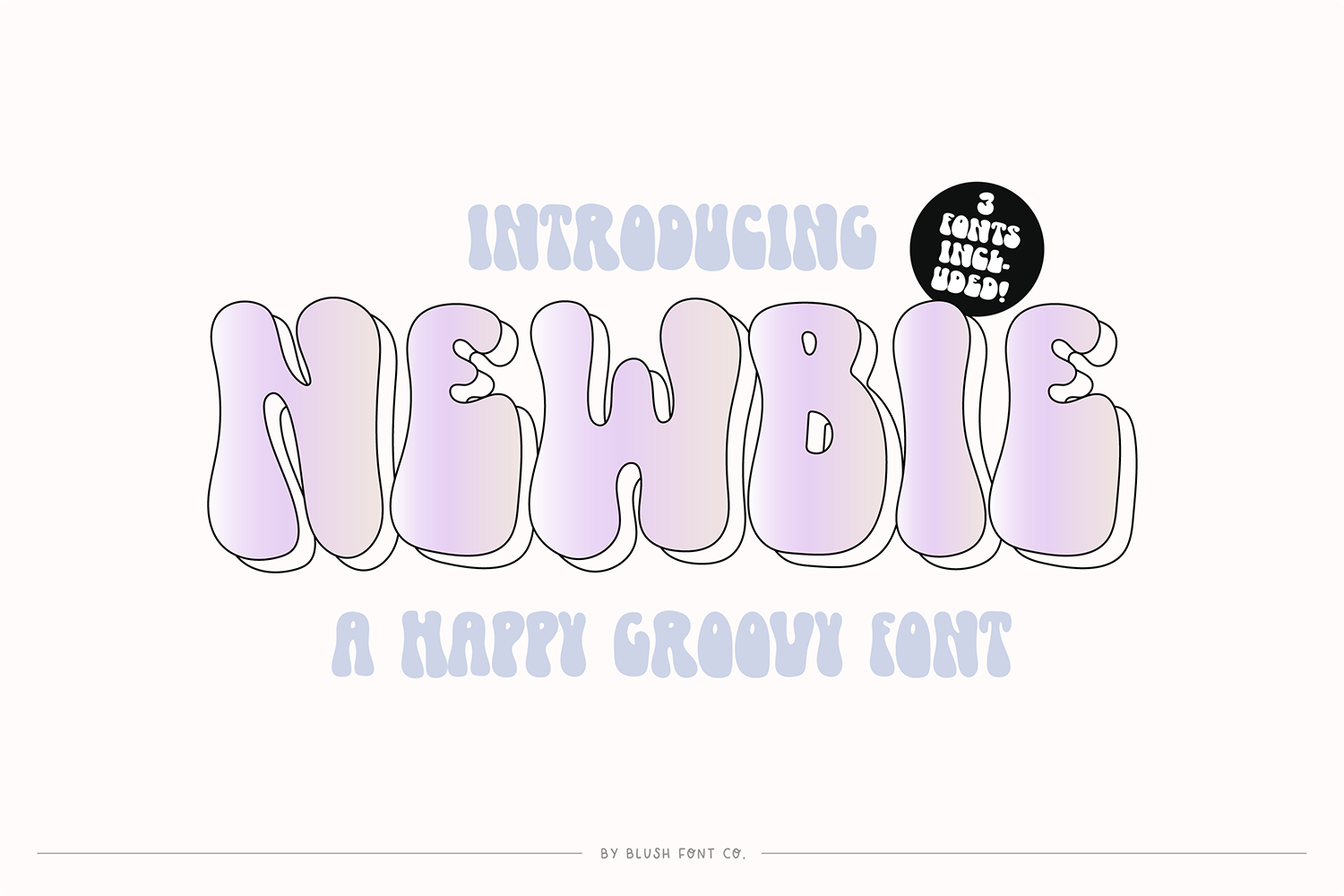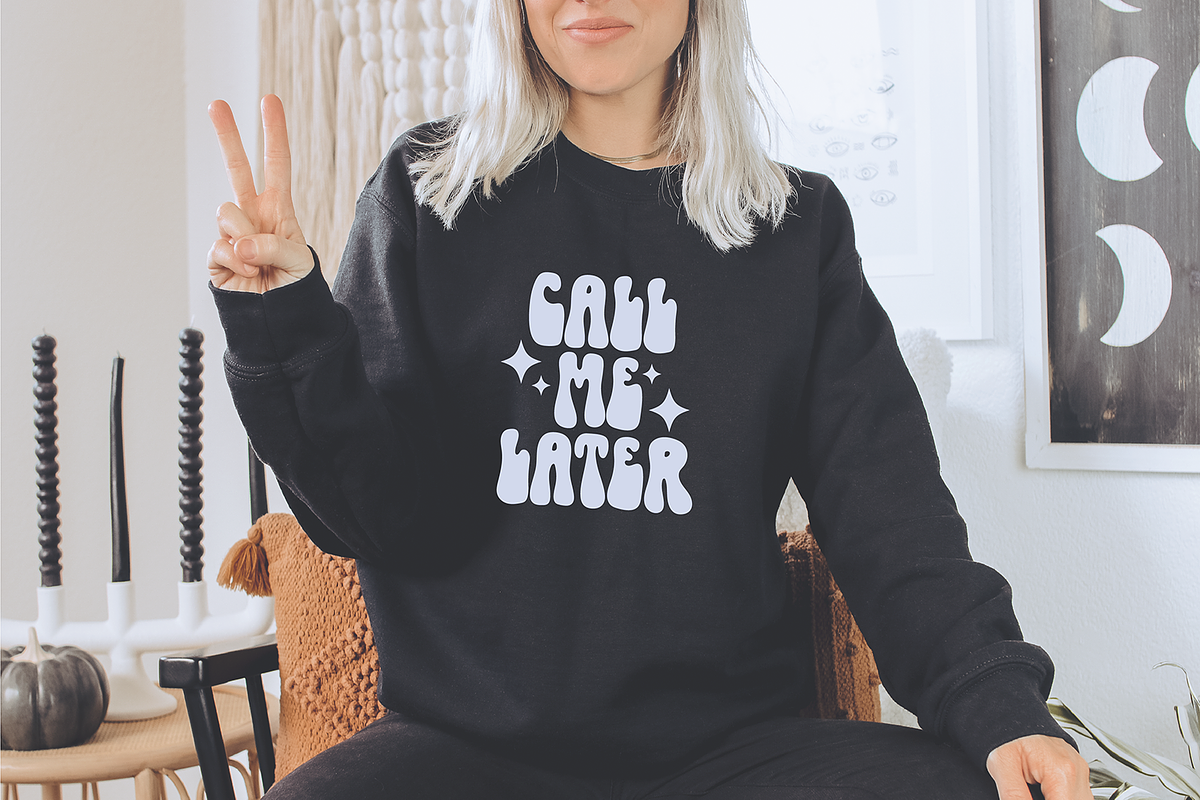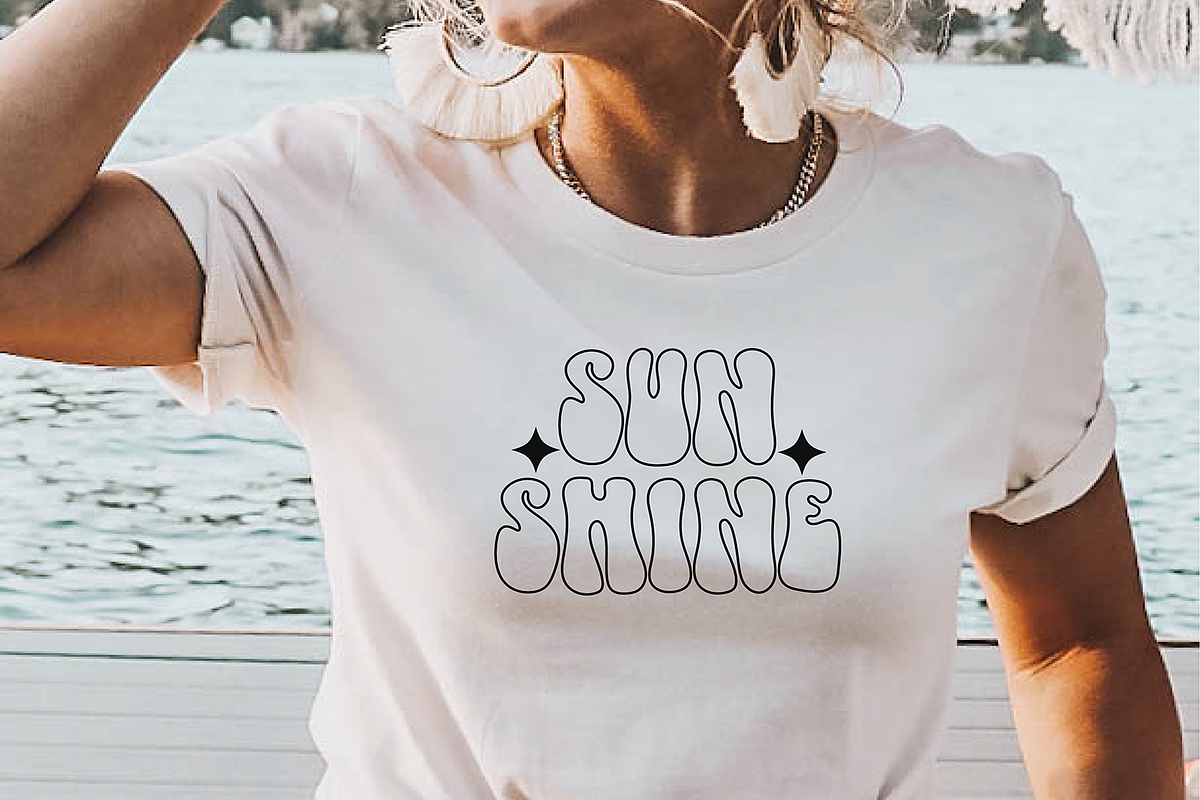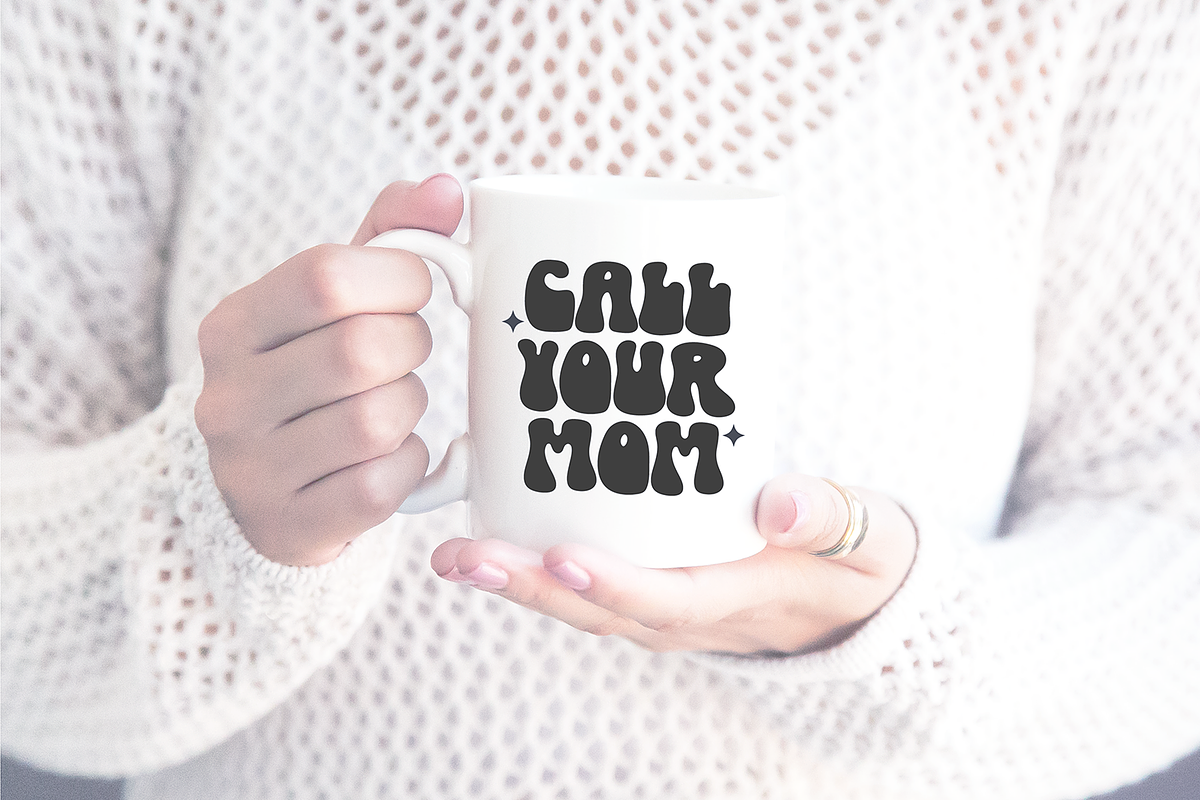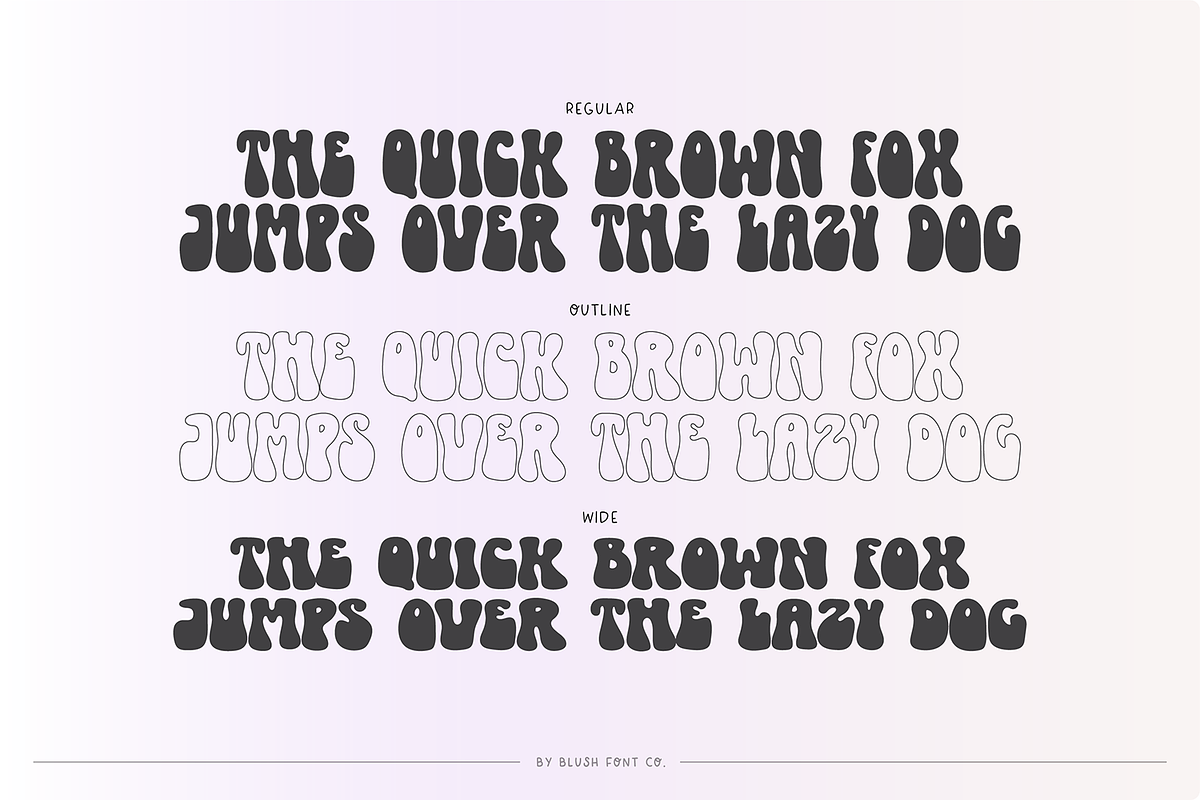
NEWBIE a Cute Groovy Retro Font
"Newbie" a stylish bubbly retro font. Includes 3 versions! Regular, Wide, and Outline.
This font is a trendy retro display font that is perfect for social media or crafty projects. Use if for branding, crafts for decor, invitations, and more!